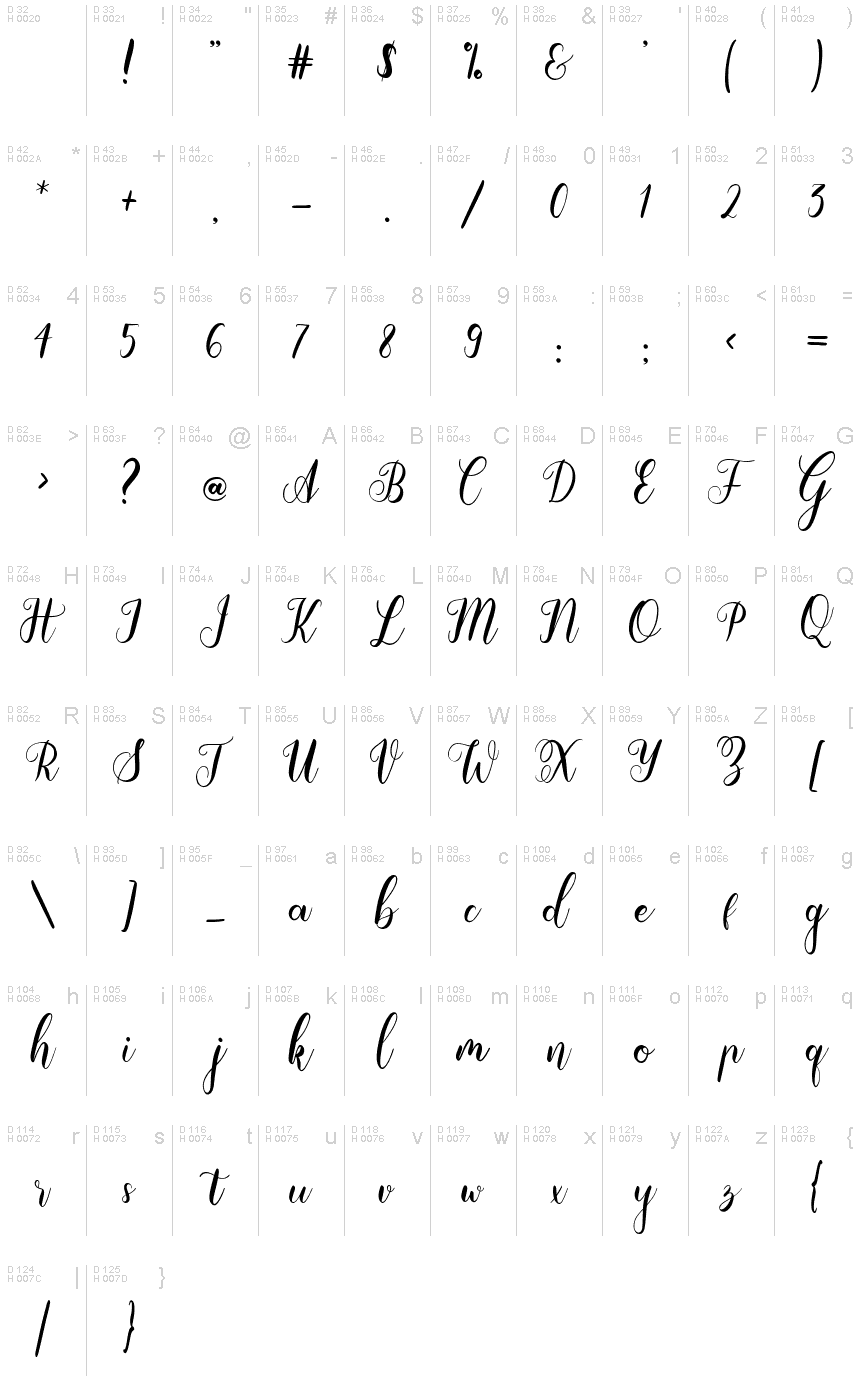
EmilaScript
Emila Script, crafted by Paily Studio, is a stunning calligraphy font that exudes elegance and sophistication. With its semi-light weight and fluid strokes, it is perfect for creating mesmerizing wedding invitations, greeting cards, logos and branding materials. This font's versatility also makes it ideal for fashion magazines, editorial designs and social media graphics. Emila Script's graceful curves and swooping swirls will enchant your audience with its timeless charm. Let this exquisite font elevate your projects to new heights of beauty and refinement!